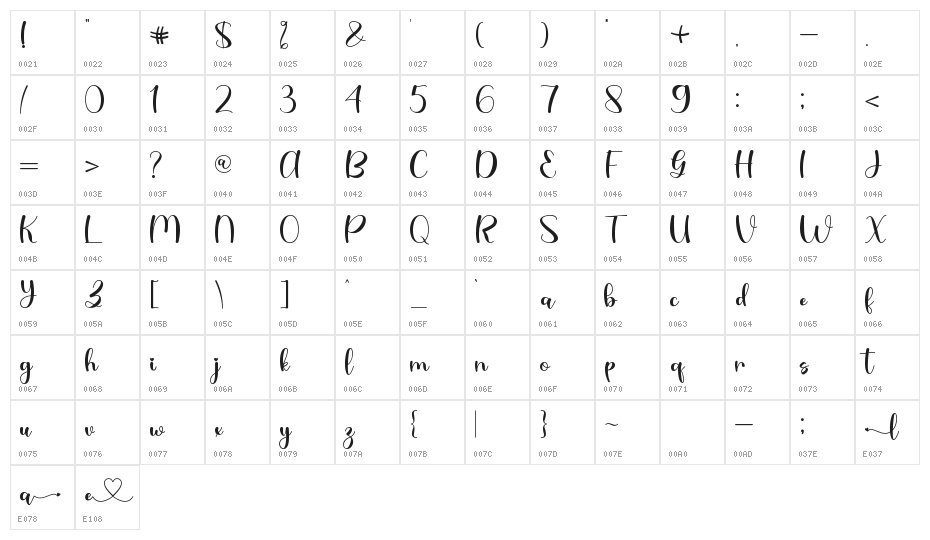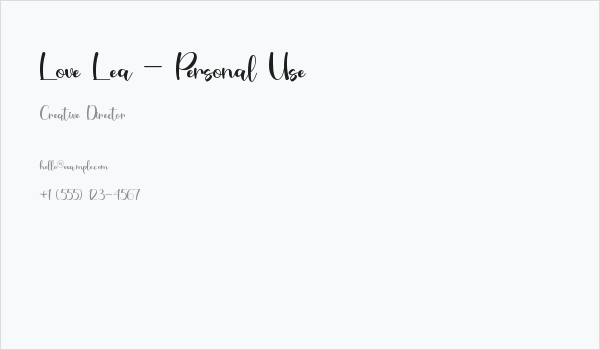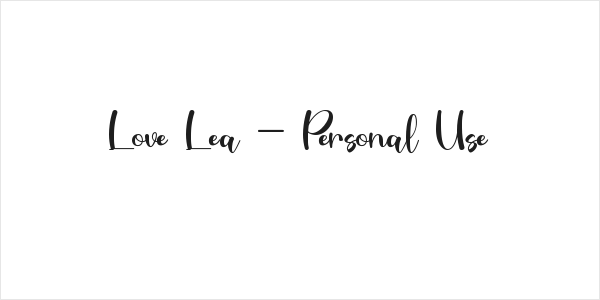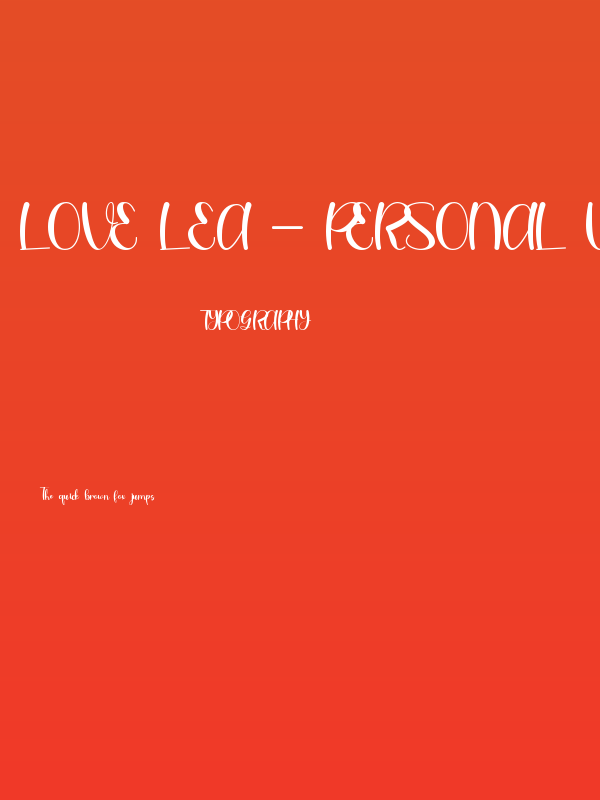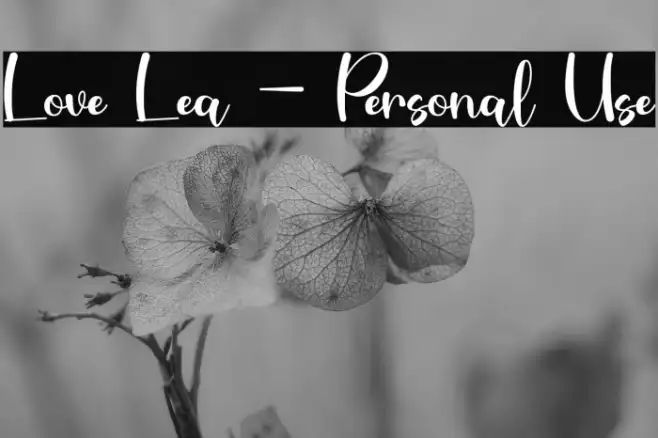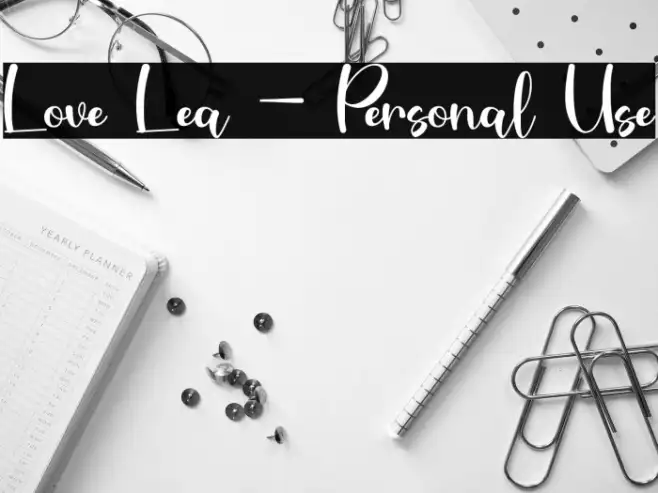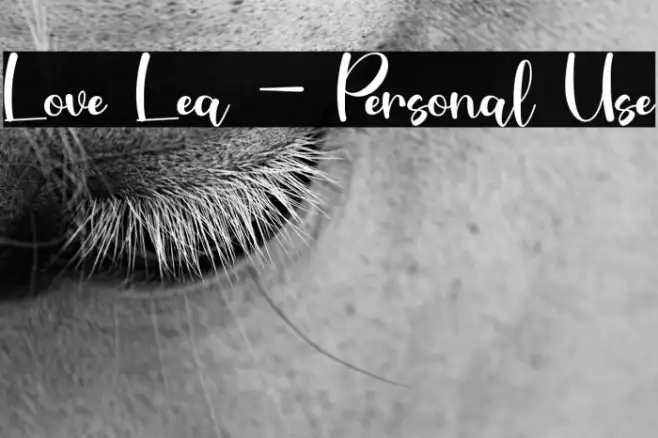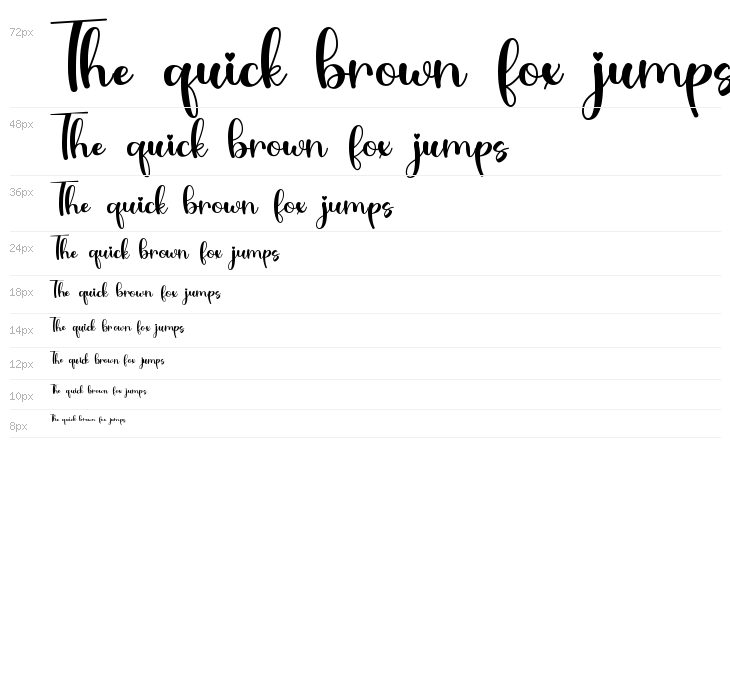
Love Lea - Personal Use Font
Love Lea - Personal Use Description
This font features a playful and elegant script style with a modern twist. The uppercase letters are characterized by their flowing, cursive forms that exhibit a sense of movement and grace. The lowercase letters maintain a consistent style, with some letters featuring unique loops and swashes that add a touch of whimsy. The numerals are bold and slightly rounded, complementing the overall aesthetic. Special characters are creatively integrated, maintaining the font's cohesive look. The font's design is ideal for projects that require a personal and artistic touch, such as invitations, greeting cards, and branding materials.